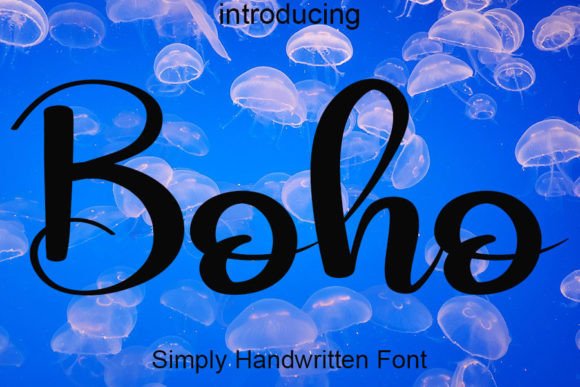
About Boho Font
Boho is not just a font; it’s an embodiment of chic simplicity and timeless elegance. This neat and beautiful handwritten script font is designed with an artistic touch that makes it perfect for a wide range of creative projects. As you explore its distinct style, you’ll find that Boho adds a touch of sophistication to your designs.
The clean lines and graceful curves of Boho make it versatile and suitable for various applications. Its simplicity is its strength, making it a font that stands out without being overly ornate. This makes Boho an excellent choice for creating designs that are both modern and classic.
In logos and branding, Boho introduces an element of style that is both trendy and enduring. Its handwritten charm adds a personalized touch to your brand identity, ensuring that it leaves a lasting impression on your audience.
For invitations and stationery, Boho turns ordinary text into a work of art. The elegant strokes of each letter make it an ideal choice for weddings, special events, or any occasion that calls for a touch of refined beauty.
Boho’s versatility extends to social media posts, blog graphics, and other digital designs. Its timeless appeal adapts effortlessly to a variety of visual content, giving your online presence a touch of sophistication.
As you incorporate Boho into your favorite projects, you’ll discover its ability to create spectacular designs. The font’s distinct style is a key asset, allowing you to stand out in a crowded design landscape.
In essence, Boho is not just a font; it’s an aesthetic choice that brings a sense of elegance and charm to your creative endeavors. Its neat and beautiful design makes it a go-to option when you want to infuse your projects with a touch of timeless style. Boho is more than a typeface; it’s a statement of refined simplicity and enduring elegance.